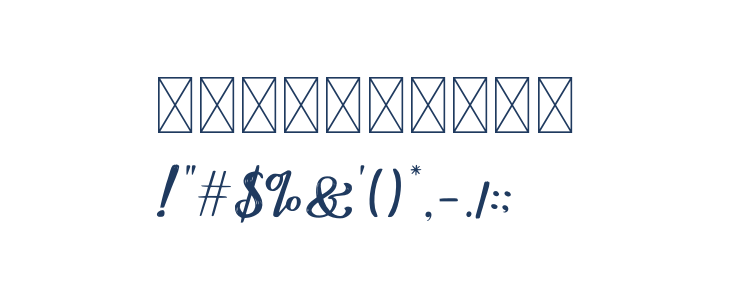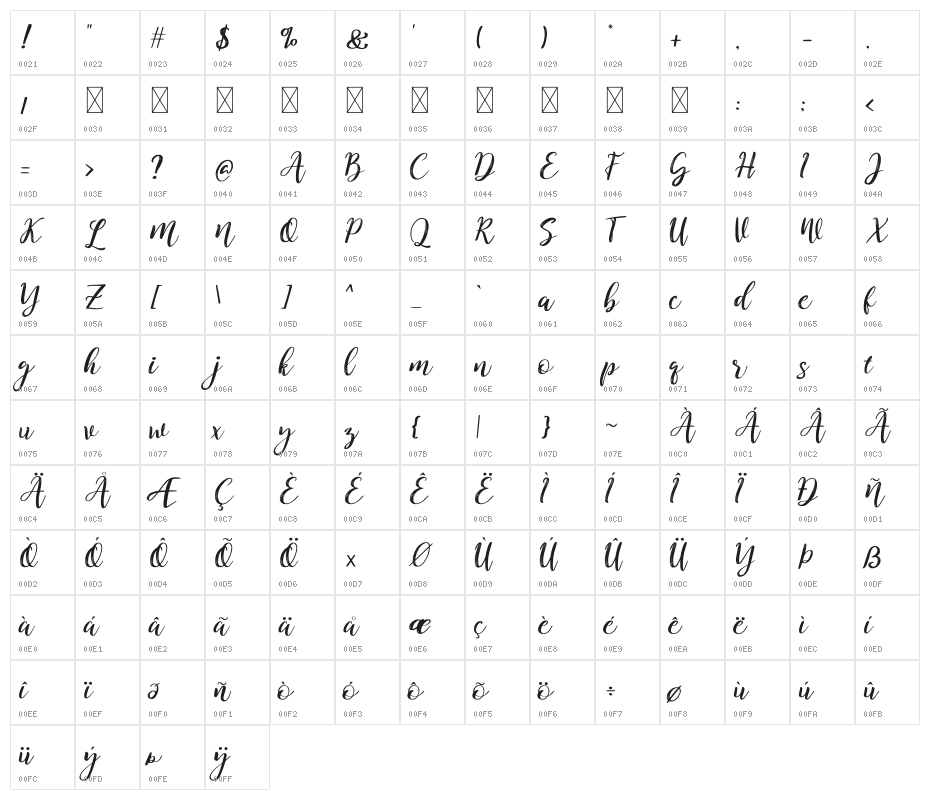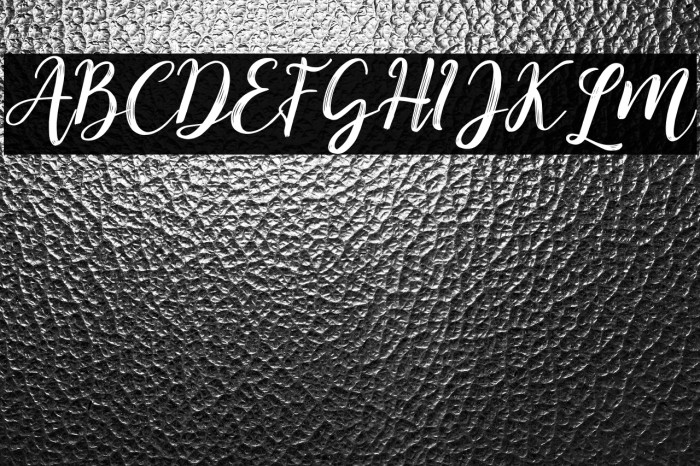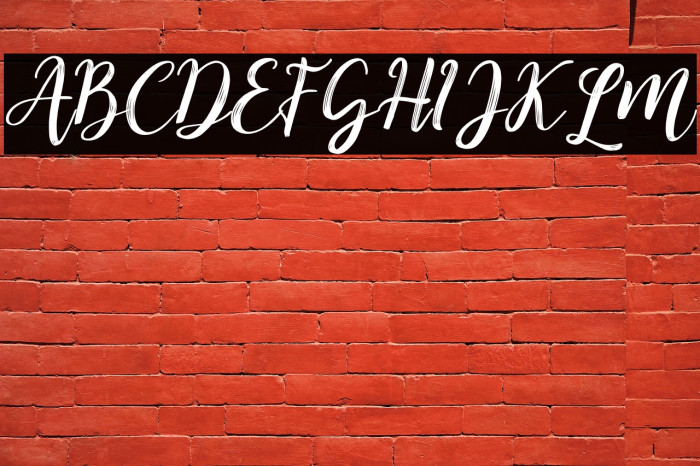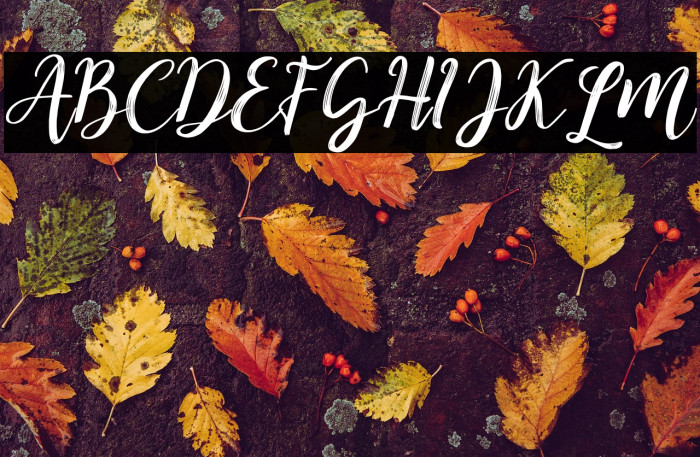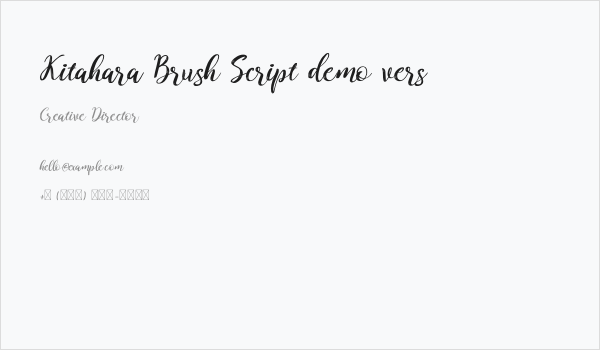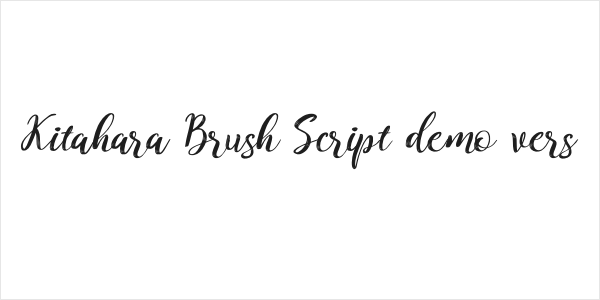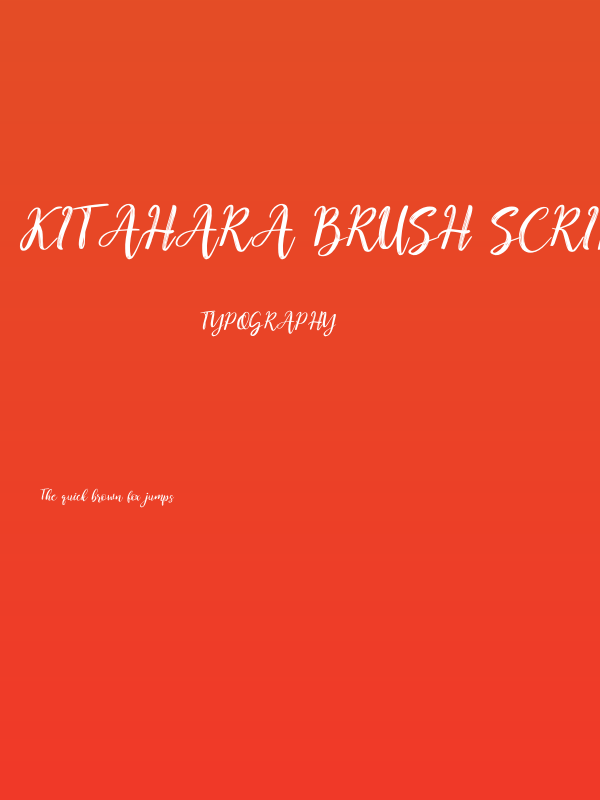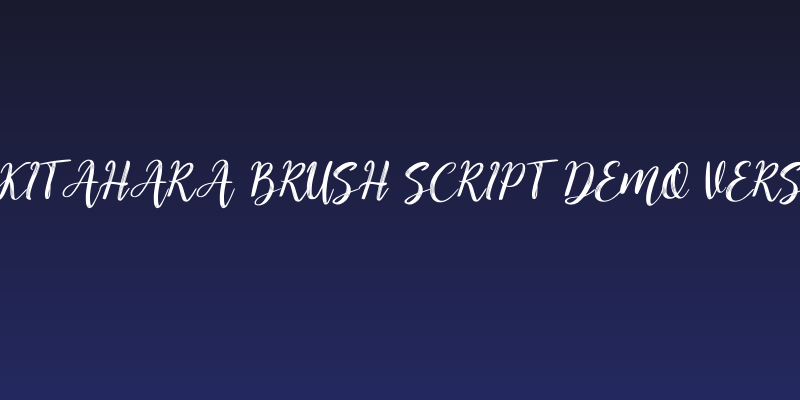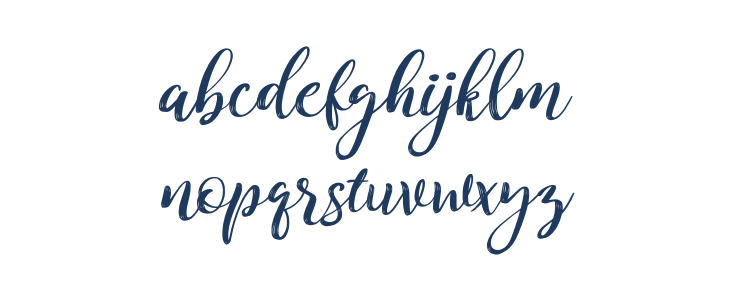
This font exudes a lively and expressive character with its brush script style. The letters are fluid and dynamic, featuring elegant curves and a sense of motion that mimics natural handwriting. The uppercase letters are bold and sweeping, while the lowercase letters maintain a consistent flow, enhancing readability. The strokes vary in thickness, adding a sense of depth and texture. The font includes a full set of uppercase and lowercase letters, numerals, and a selection of punctuation marks, making it versatile for various design needs. Its artistic flair makes it suitable for creative projects that require a personal touch.
Use CaseLogos, Headlines, Invitations
Proposed ProjectsIdeal for wedding invitations, greeting cards, branding projects, and any design requiring a personal, artistic touch.